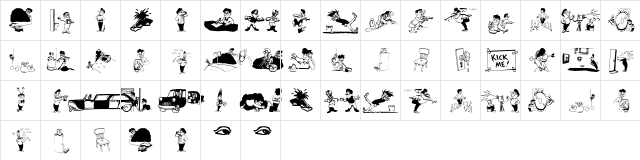
Jokers Regular
Design Context for Jokers Typeface
Jokers is a composed and adaptable typeface that performs quietly and consistently across a wide range of design contexts.